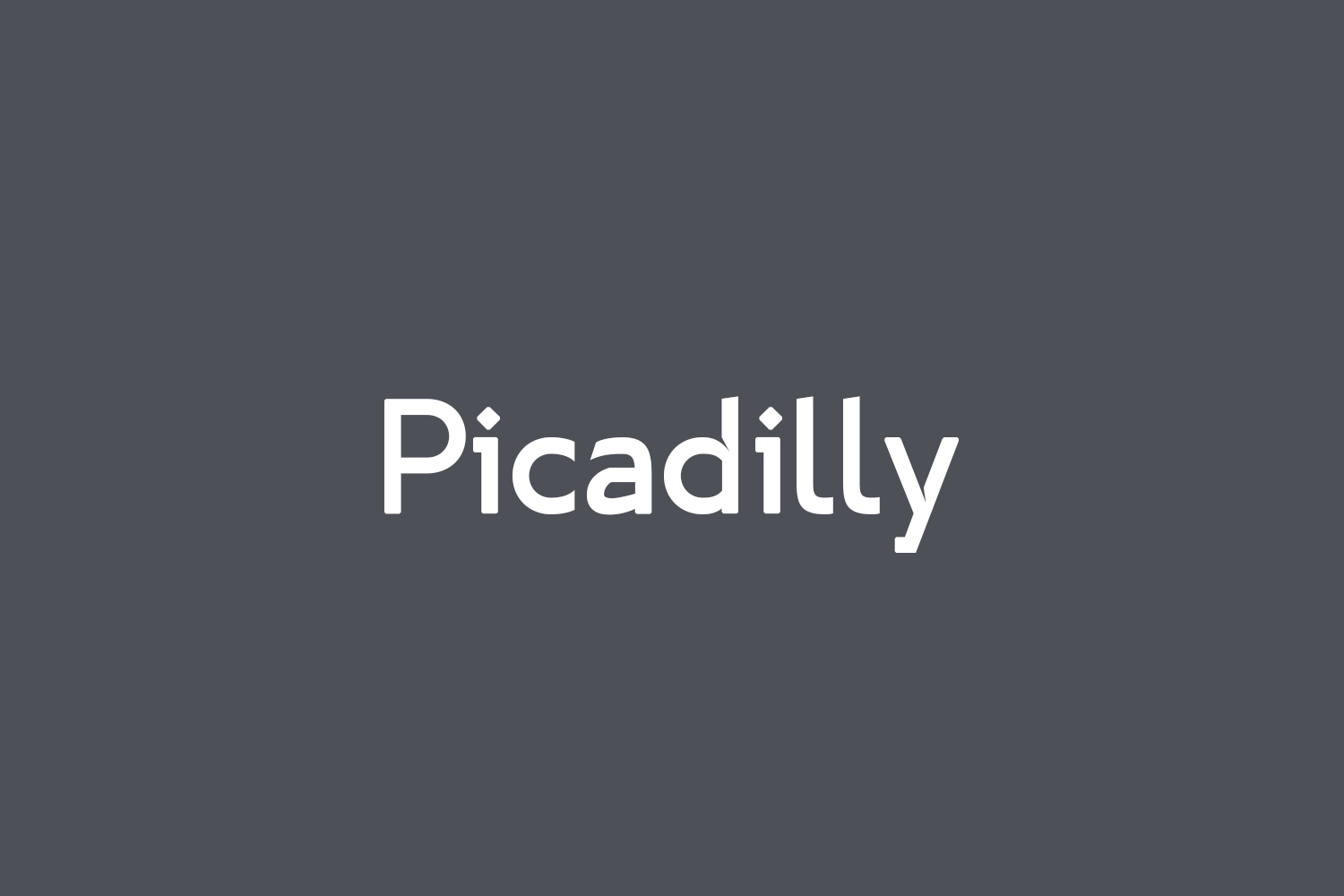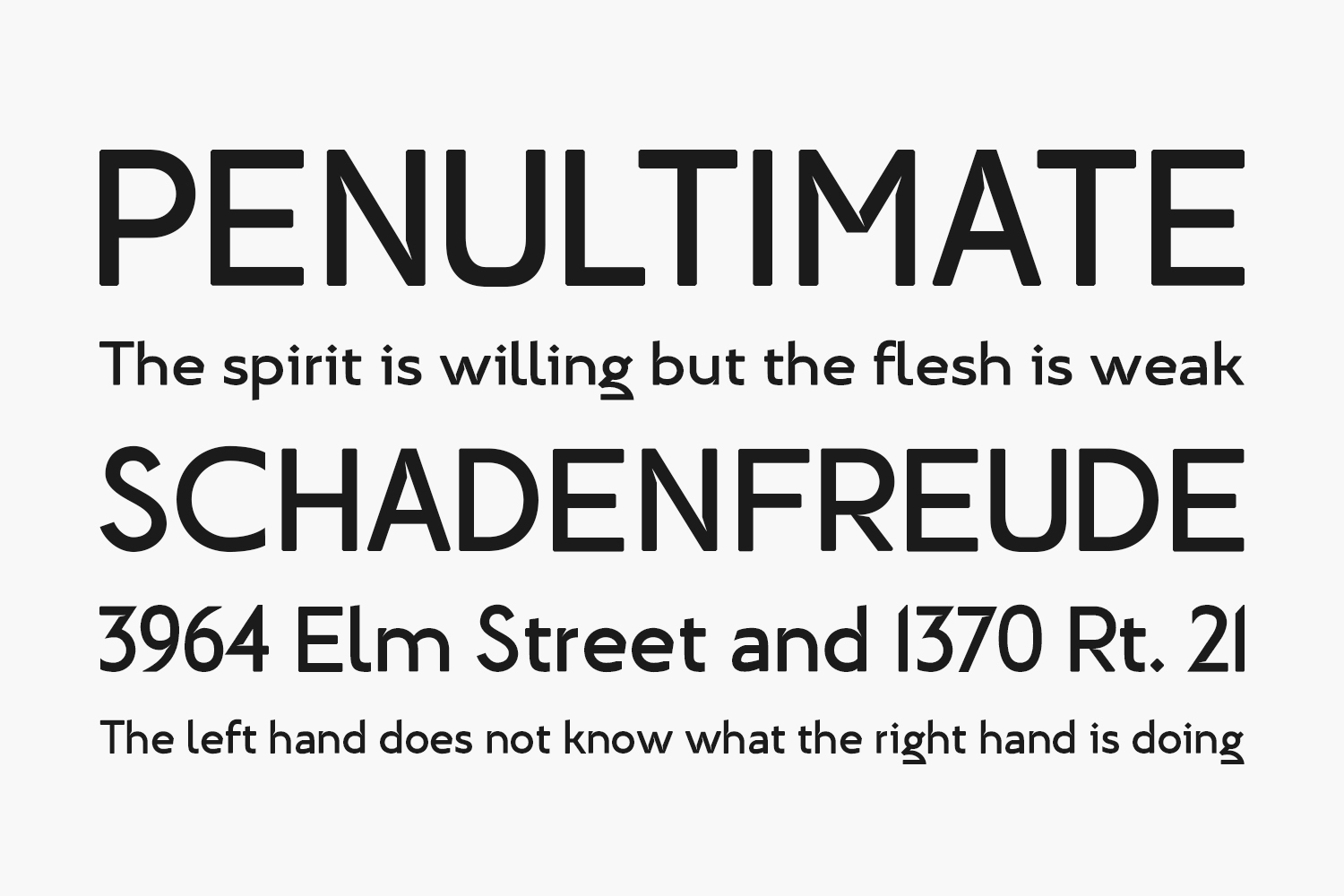
Picadilly Free Font Family was made after my short visit in London and huge impression of Edward Johnston works. I’ve designed family of 12 modern typefaces with strong detail in the form of sharp inktraps.
Designed by BORUTTA GROUP